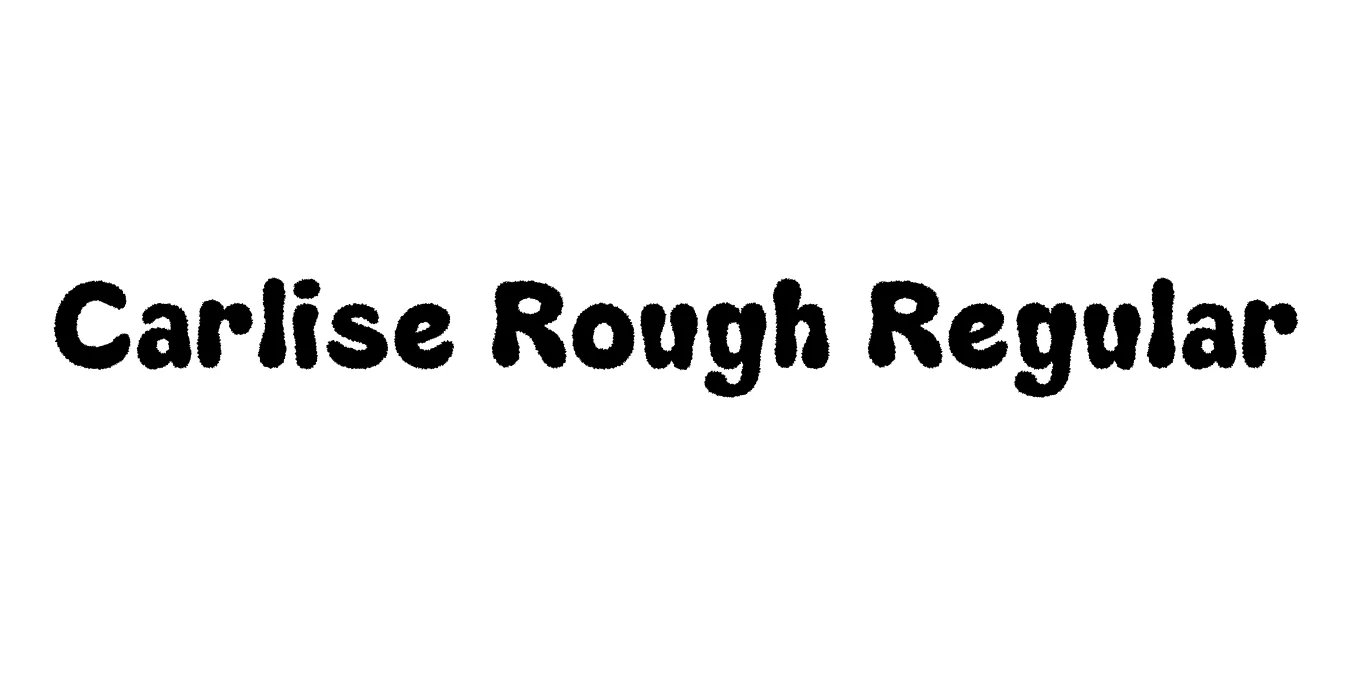
Carlise Rough Regular
Designed by Arterface
| Category | Vintage Display |
| Designer | Arterface |
Carlise Rough Regular is a distinctively hand-crafted display typeface that draws heavy inspiration from classic vintage signage and industrial lettering. The font features a distressed, weathered texture that provides an immediate sense of history and authenticity to any composition. Its letterforms are built on a solid, balanced structure, ensuring that despite its rugged appearance, the font maintains high legibility for both digital and print media.
This typeface is particularly effective for projects that require a rustic or heritage aesthetic. The organic imperfections in the outlines mimic the look of traditional ink-on-paper or stamped metal, making it a go-to choice for designers working on artisan branding, outdoor gear logos, or retro-themed marketing campaigns. Carlise Rough Regular bridges the gap between old-world craftsmanship and modern design versatility.
Carlise Rough Regular Best Uses
Perfect for creating authentic, heritage-focused brand identities and badges.
Excellent for t-shirt prints, denim branding, and vintage-style streetwear.
Ideal for organic products, craft brewery labels, and artisan food packaging.
Works well for high-impact headlines in magazines focused on travel or history.